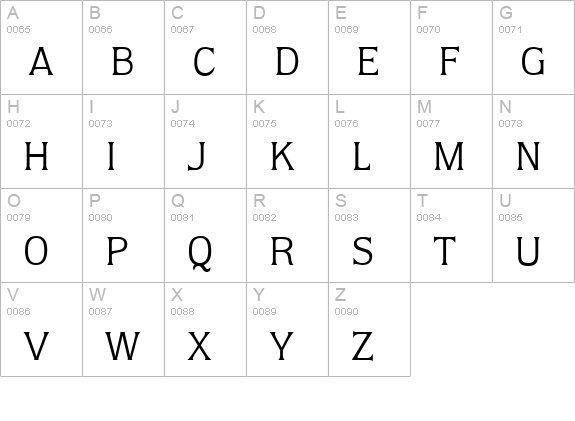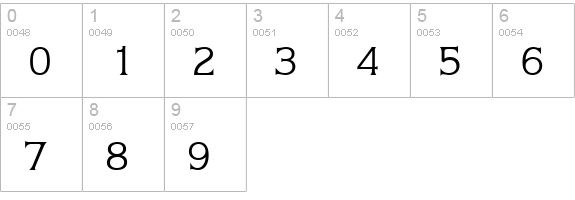
Q853-Flare-Regular Font Details
Q853-Flare-Regular is the standard, neutral variant in the Q853 typeface family \xE2\x80\x94 well suited to general body text, paragraphs, and standard typographic work.
Q853-Flare-Regular font is a modern and stylish typeface that exudes elegance and sophistication. Its sleek lines and sharp edges make it perfect for a wide range of design projects, from logos to branding to editorial layouts. The font's versatility allows it to be used for both headings and body text, providing a cohesive and polished look to any project. What sets Q853-Flare-Regular font apart is not only its aesthetic appeal but also its accessibility. This high-quality font is available for free download at FontsMarket.com, making it easy for designers and creatives to incorporate it into their work without any cost barriers. With its clean and contemporary design, Q853-Flare-Regular font is sure to elevate any design project and leave a lasting impression on viewers.